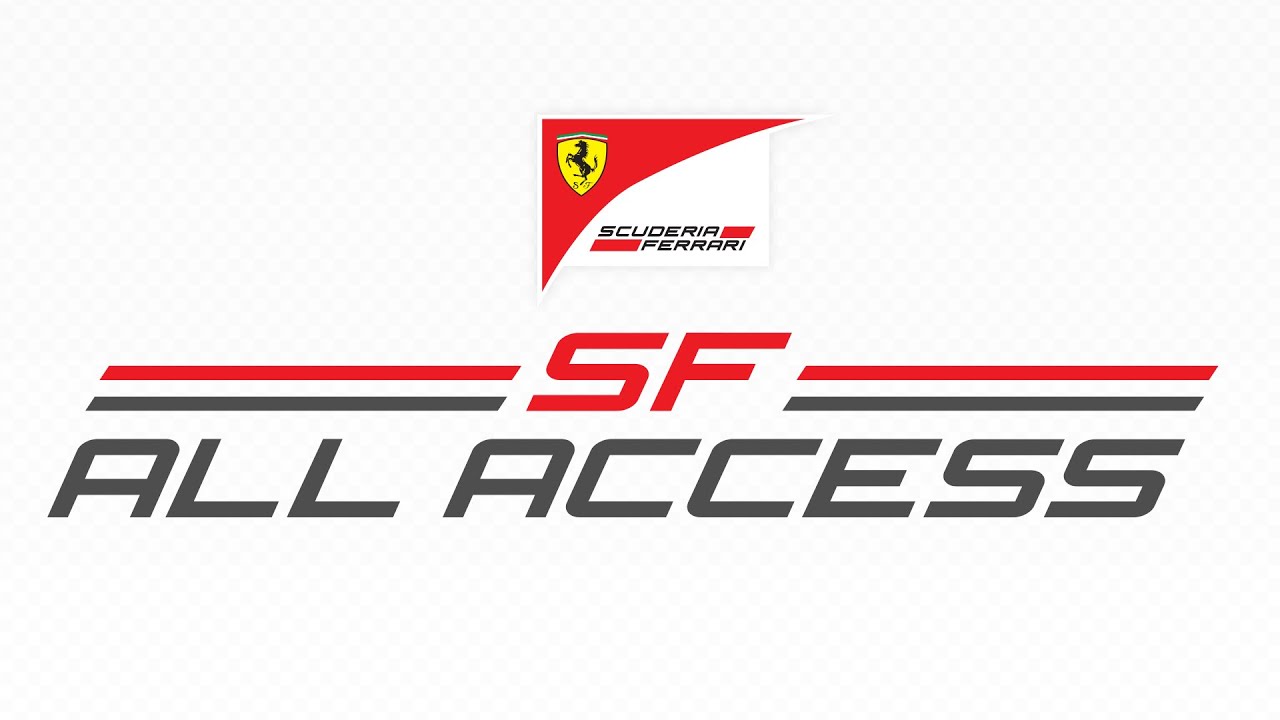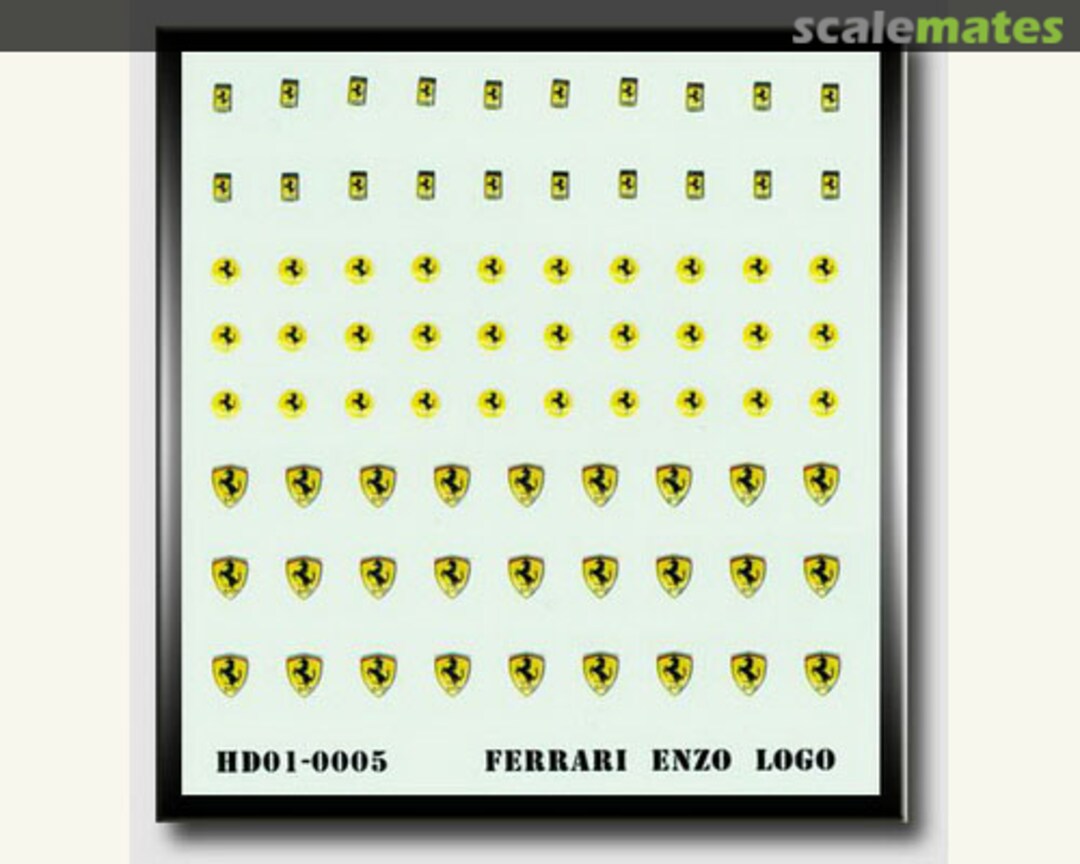
Ferrari Font Logo
This brand was founded by Mr Enzo Ferrari on 13 September 1939.
Ferrari font logo. Ferrari annually sells many nonprofit products worth $ 1.5 billion worldwide. Ferrari font here refers to the font used in the logo of the auto brand Ferrari, which is an Italian sports car manufacturer founded by Enzo Ferrari in 1929. Search and find FONTS used by World Brands in their logo.
It was based on the Ferrari logo which an Italian luxury sports car brand. A font called Ferro Rosso by Michael Hagemann is very similar to the slab serif for the stylized “Ferrari”. The Ferrari logo consists of the famous Cavallino Rampante, the black prancing stallion on a yellow shield, three stripes of green, white and red at the top and the stylized “Ferrari” at the bottom.
July 22, at :42. Ferrari has become an international brand and a global symbol of wealth and prestige, and the value of the company and its logo has grown remarkably.